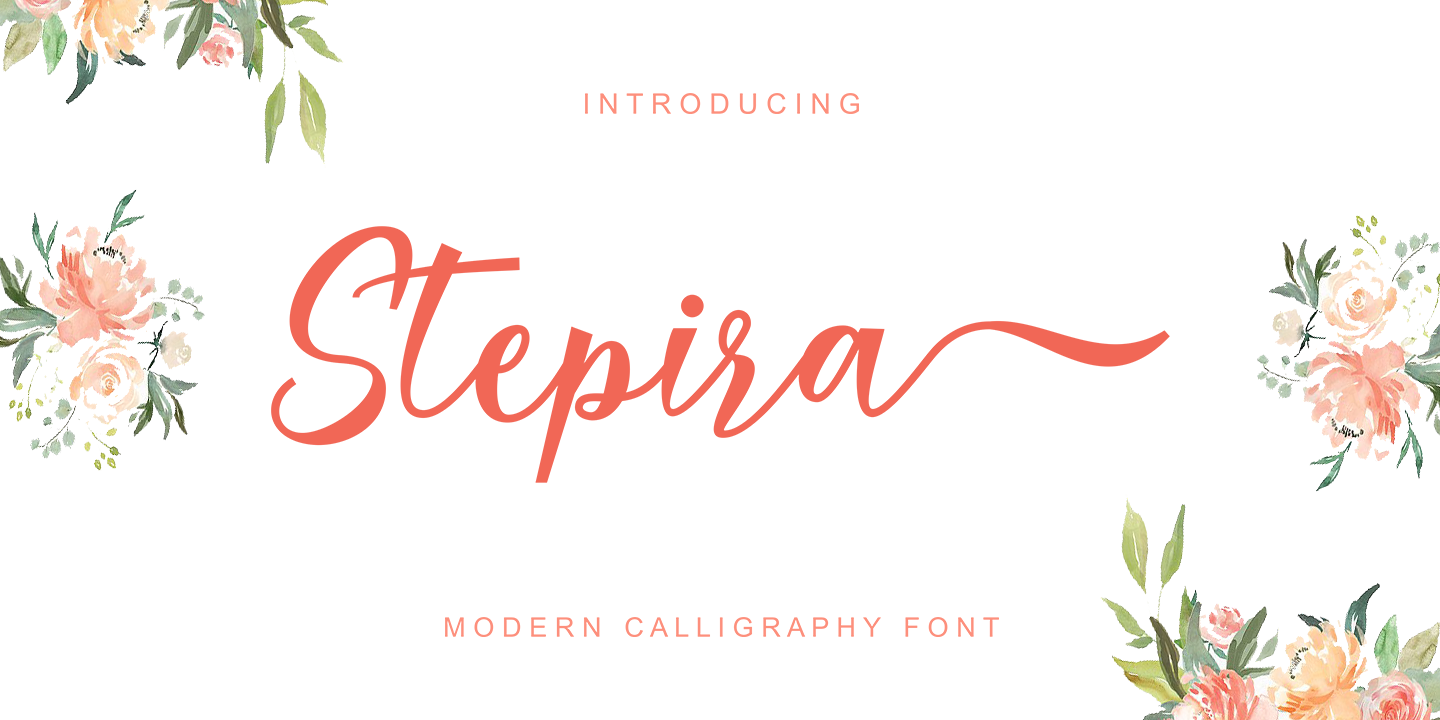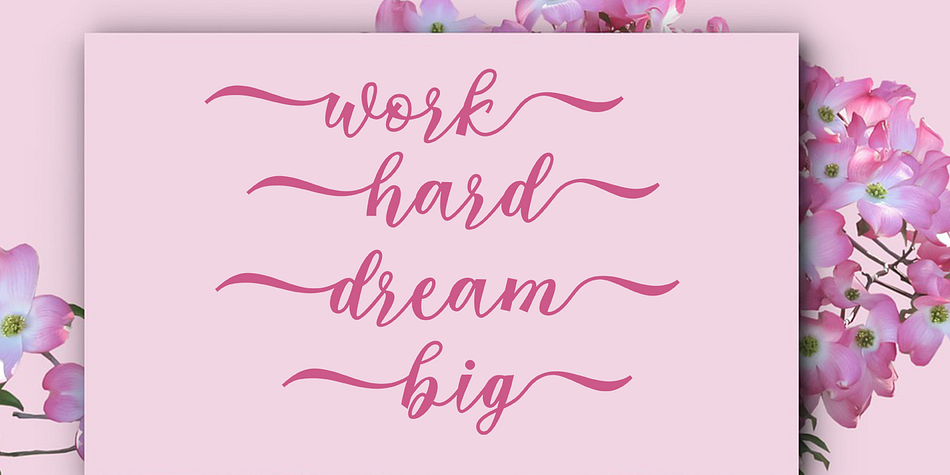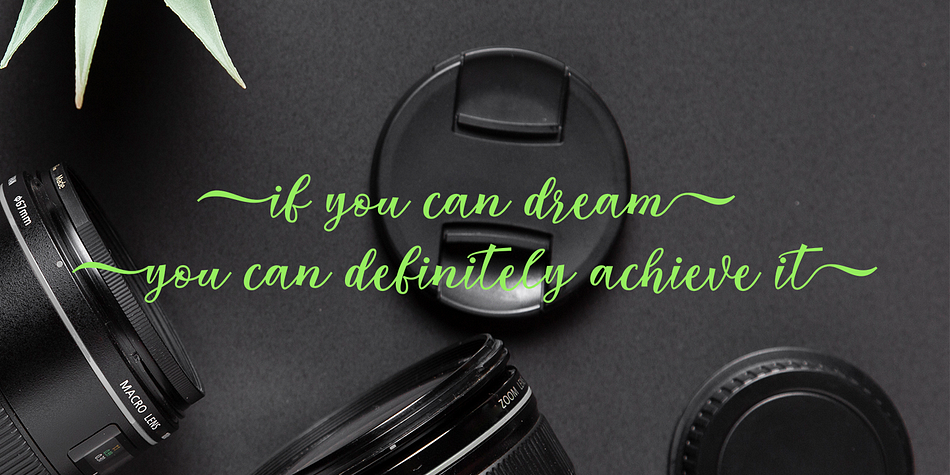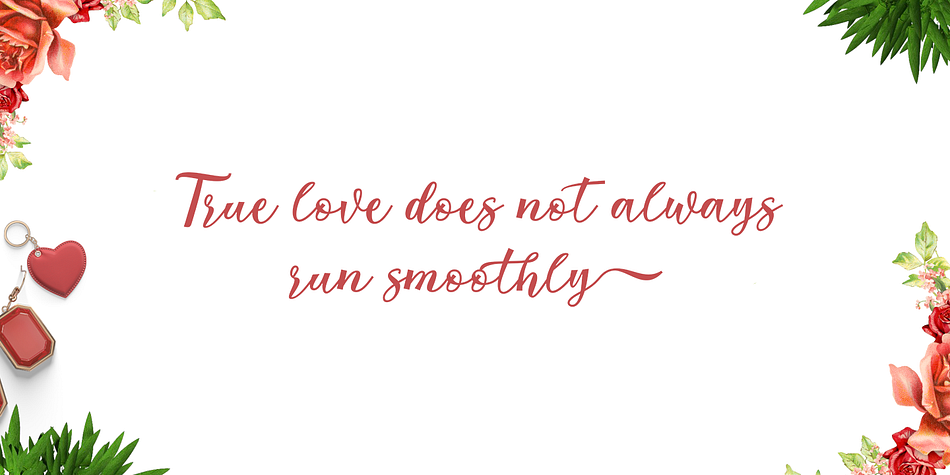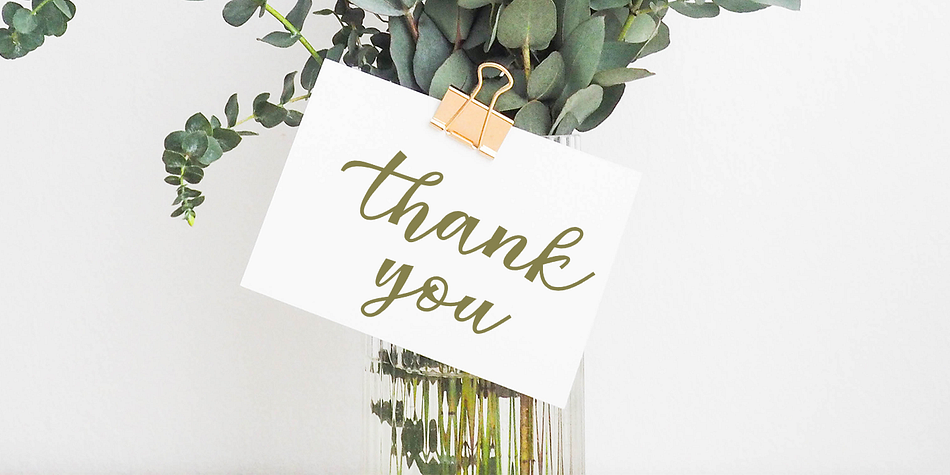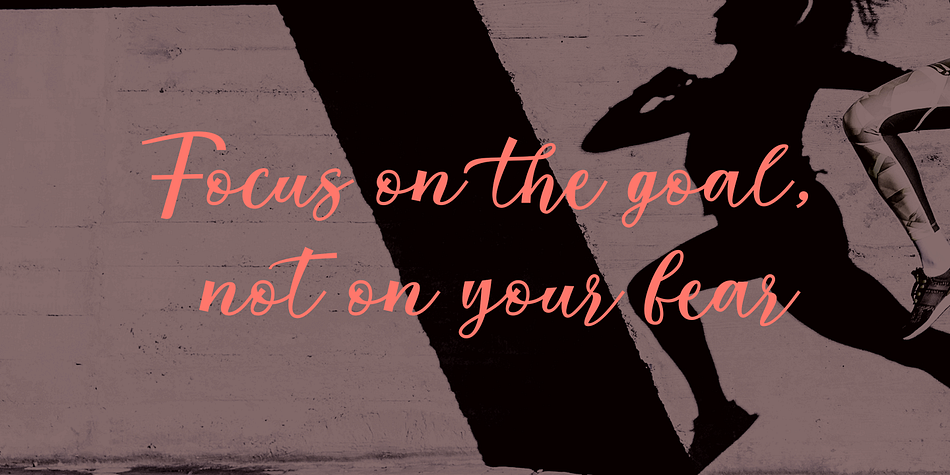
Stepira
Stepira is a brush script font family published by Gatype.
Stepira Script is a modern calligraphy font, with characters dance along the baseline and elegant touch. Opentype features with stylistic alternates, ligatures and multiple language support. Can be used for various purposes.such as logos, wedding invitation, heading, t-shirt, letterhead, signage, lable, news, posters, badges etc. Stepira Script including alternate glyph and beautiful swirl.